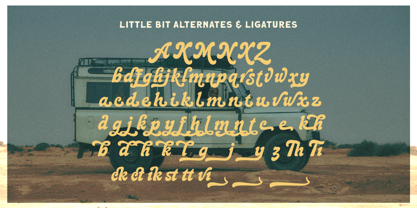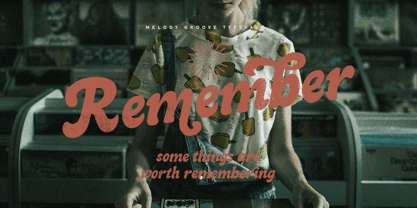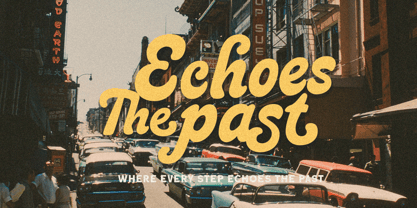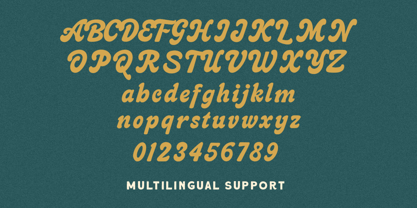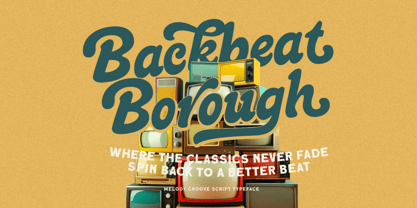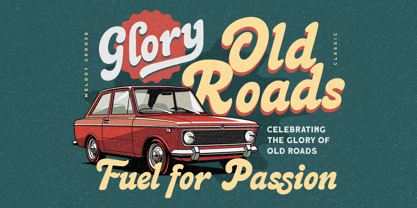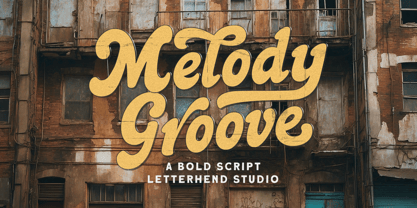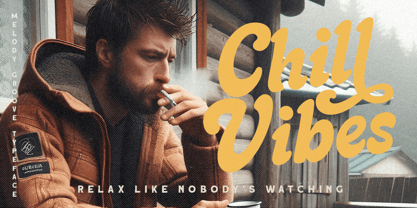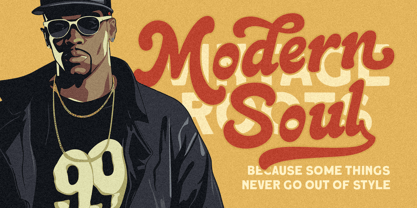
Melody Groove
by Letterhend
The Melody Groove Font Family was designed by Hendry Juanda and published by Letterhend. Melody Groove contains 1 styles. More about this family
Melody Groove is a bold script font that exudes a retro vibe with a modern twist. Featuring bold, flowing curves and a character-rich design, it evokes a warm yet energetic vintage feel, reminiscent of charming old-town memories. Perfect for design projects such as posters, branding, packaging, and invitations, Melody Groove brings a sense of nostalgia paired with a fresh, confident flair.
Features :
• Uppercase & lowercase
• Numbers and punctuation
• Alternates Character
• Multilingual support
Designers: Hendry Juanda
Foundry: Letterhend